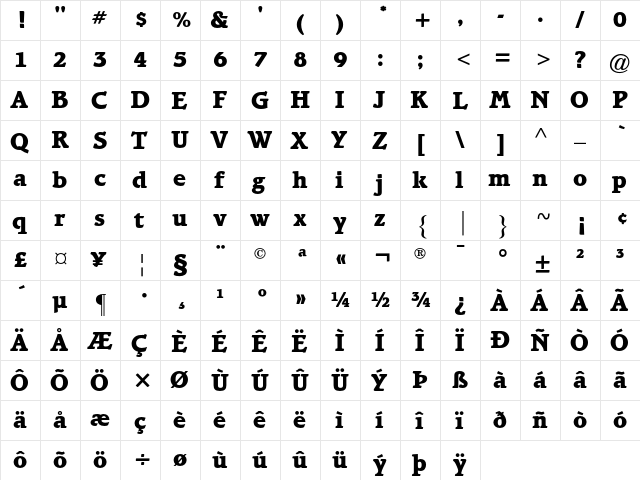
ATBramley Regular
Design Context for ATBramley Typeface
ATBramley offers clean, dependable letterforms without strong stylistic allegiance, making it a practical choice for designers who need flexibility.